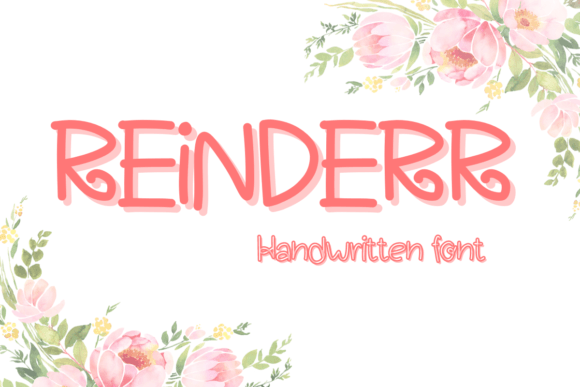
Introducing Reinderr, the script font that captures the essence of handwritten beauty. Created by Sirinart, this elegant and whimsical font will add a personal touch to all your creative endeavors.
With its flowing strokes and playful curves, Reinderr is perfect for taking notes, writing a diary, or making greeting cards. Its versatility extends beyond personal use, making it a stunning choice for banners, content creation, mugs, cards, shirts, stationery, social media posts, and more.
Whether you're a seasoned designer or just starting out, Reinderr is a font that will ignite your creativity and leave a lasting impression. Its unique charm and effortless style will elevate your designs and captivate your audience.
Here's why Reinderr is the perfect font for you:
* **Unleash Your Creativity:** Reinderr's enchanting style will inspire your creativity and allow you to express yourself in unique and captivating ways.
* **Add a Personal Touch:** Bring a handwritten touch to your designs, whether it's a heartfelt note, a personalized card, or a captivating social media post.
* **Make a Statement:** Let your designs stand out with Reinderr's distinctive style. Its eye-catching curves and graceful lines will leave a lasting impression.
* **Endless Possibilities:** From personal projects to professional designs, Reinderr's versatility knows no bounds. Use it for a wide range of projects, from simple notes to elaborate designs.